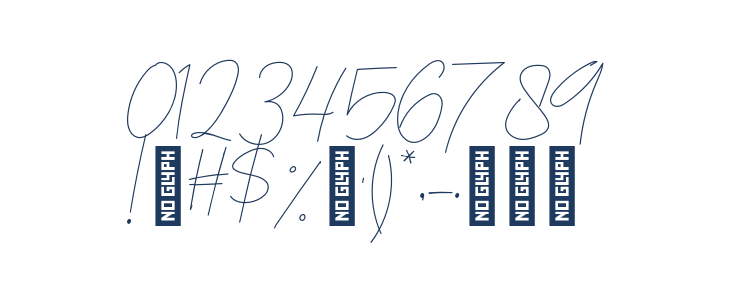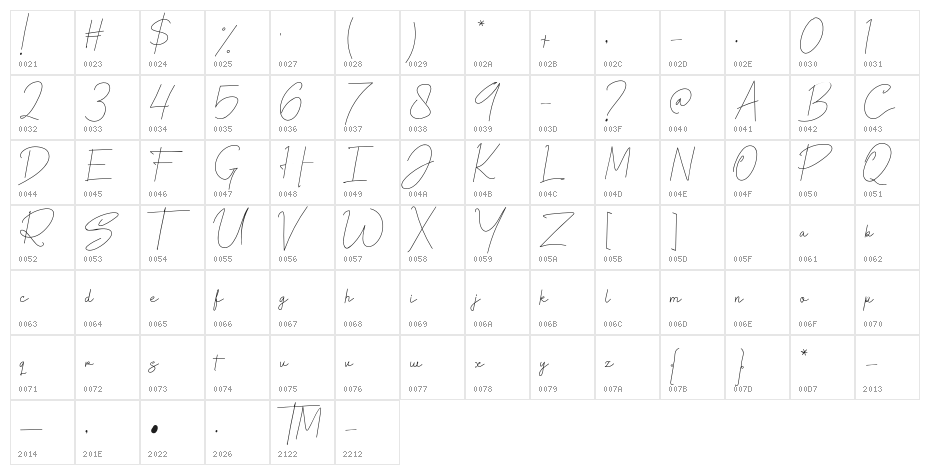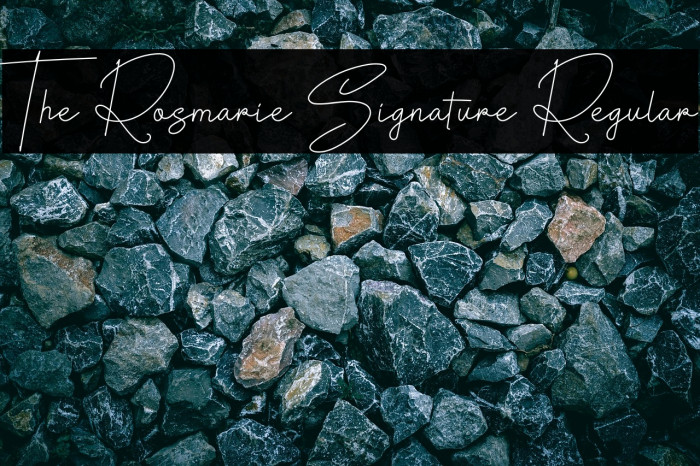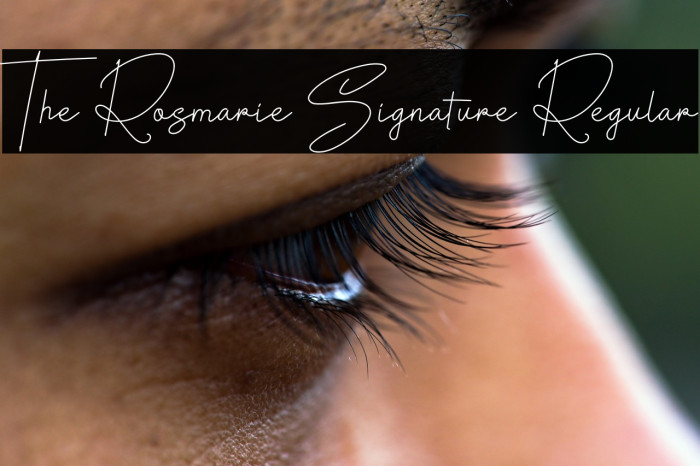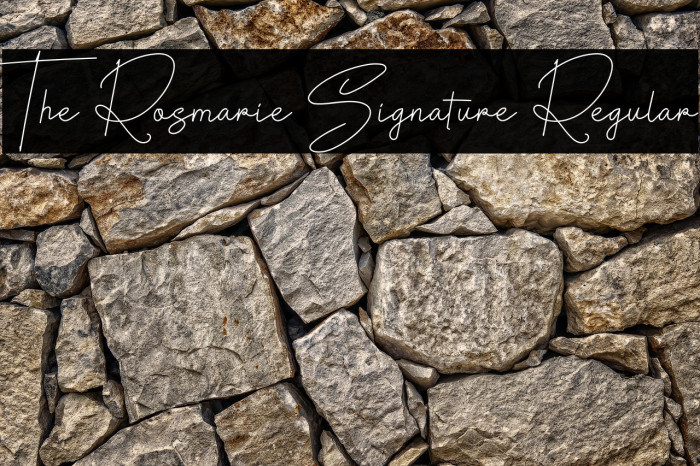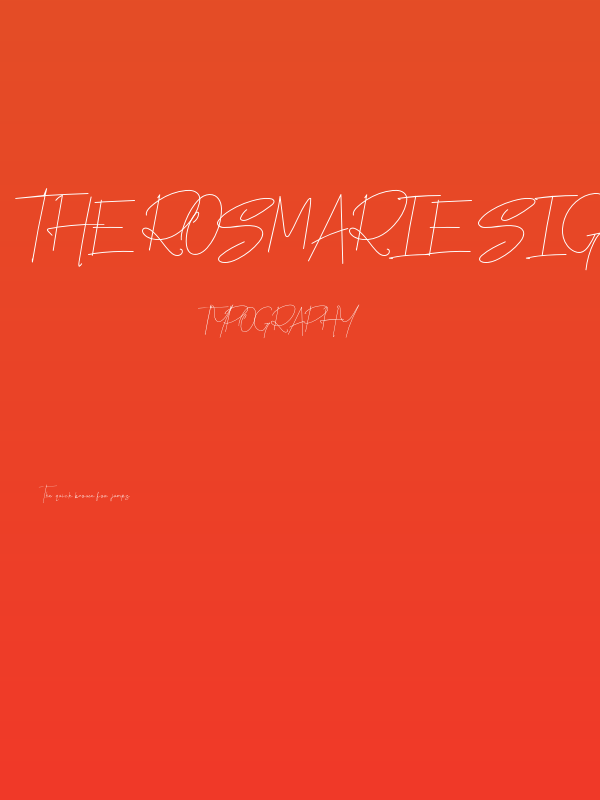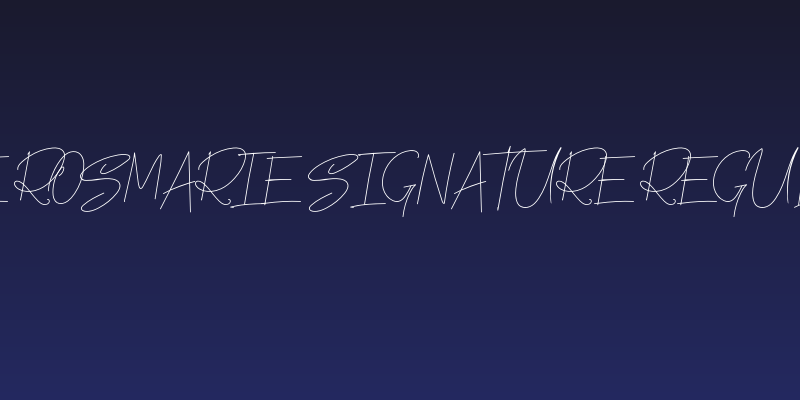
The Rosmarie Signature Regular Font
The Rosmarie Signature Regular Description
This font exudes a sophisticated and elegant handwritten style, characterized by its fluid and graceful strokes. The uppercase letters are tall and slender, with a slight slant that adds a dynamic feel. The lowercase letters maintain a consistent flow, enhancing readability while preserving the font's delicate nature. Numbers and special characters are crafted with the same attention to detail, ensuring a cohesive look across all glyphs. The overall appearance is refined, making it suitable for projects that require a touch of elegance and personal flair.
| Use Case | Logos, Invitations, Personal branding |
| Proposed Projects | Ideal for wedding invitations, personal branding, elegant stationery, and upscale packaging. |